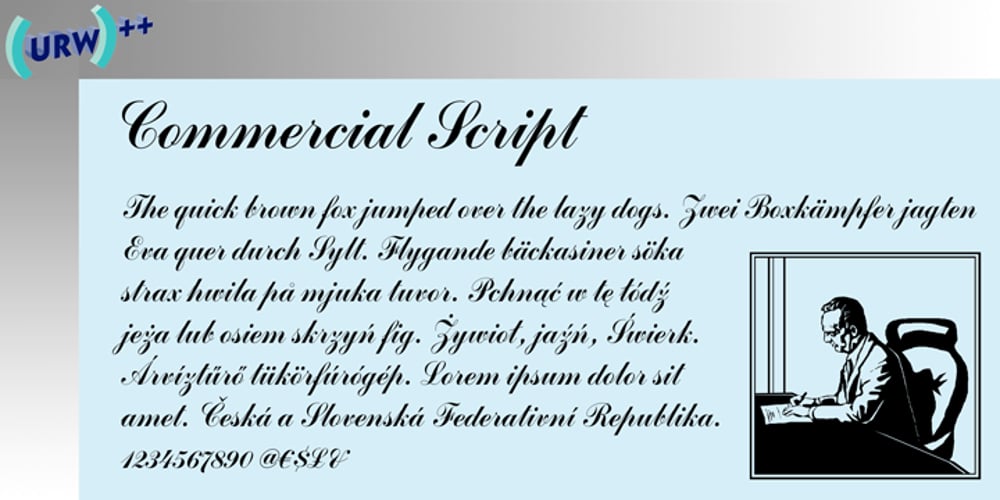
Commercial Script Font Family was designed by Morris Fuller Benton and published by URW Type Foundry. Commercial Script contains 2 styles and family package options. Commercial Script is a sophisticated copperplate script design. Its capitals are elaborate initials, and the lowercase letters join together in the style of real handwriting. Commercial Script’s elegant refinement makes it a classic and ever-popular typeface.The spark behind this typeface comes from centries-old English Spencerian copperplate calligraphy. In 1985, the American typefoundry Barnhart Brothers & Spindler released a typeface in this style. This was redesigned by ATF’s Morris Fuller Benton in 1906, and ATF released Commercial Script” in 1908. In 1994, Letraset’ released this digital version of the typeface.”